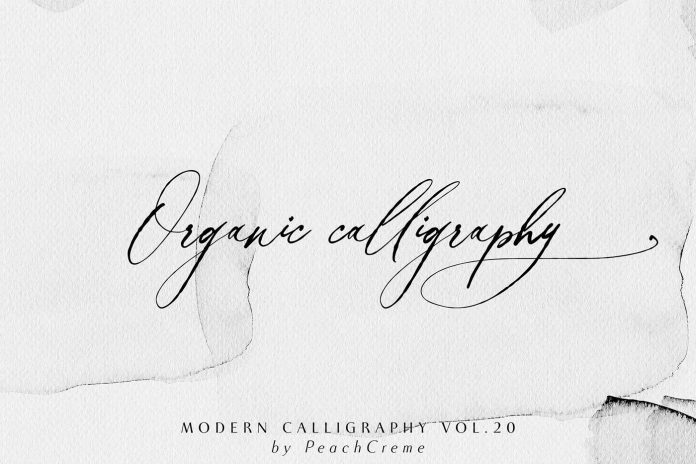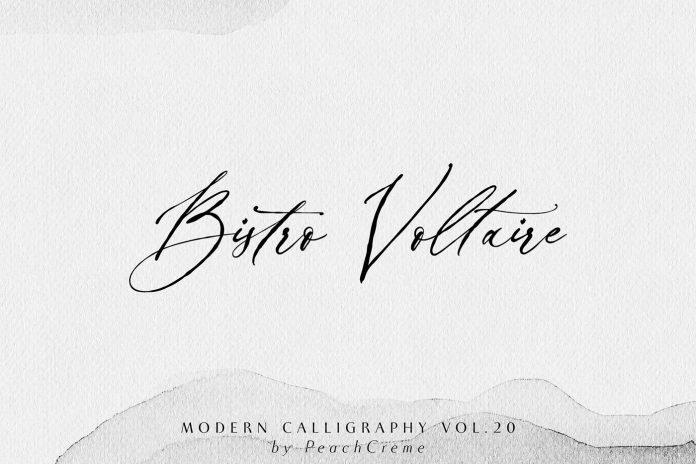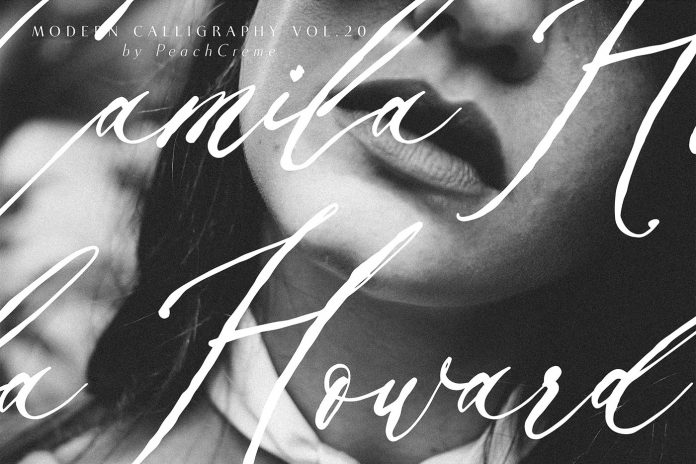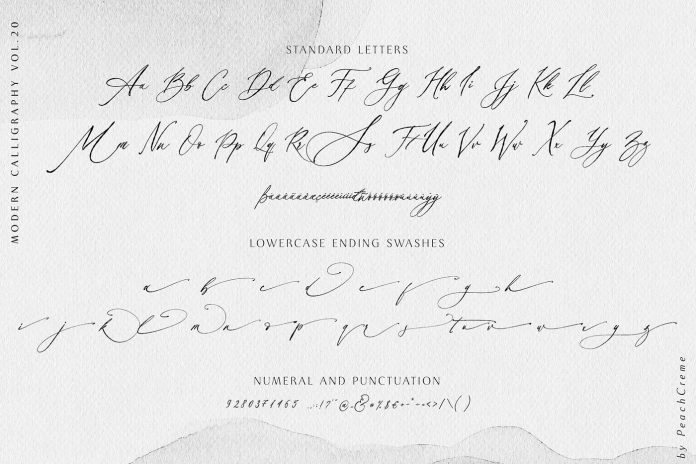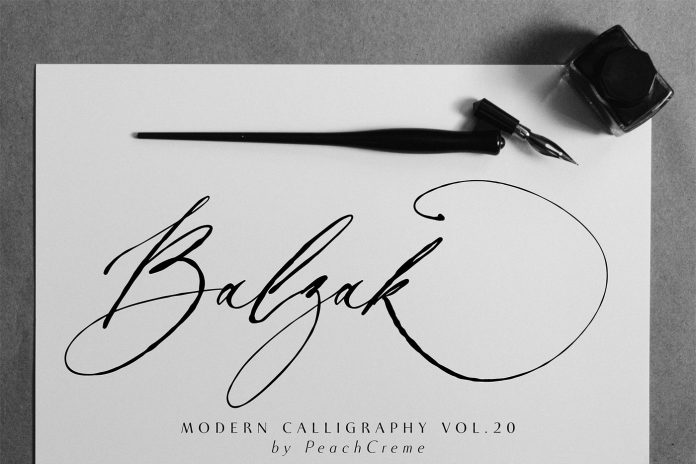
The Balzak font —organic calligraphy by Gulya Ju of studio PeachCreme.
Gulya Ju is a type and graphic designer with a strong passion for handmade lettering. The skilled designer has recently published Balzak, a new calligraphic typeface based on real handwriting. Characterized by messy ink and “imperfect” letters, the font is a great choice for all designs that ask for natural, hand-drawn lettering. Balzak comes with both uppercase and lowercase letters as well as numerals and a wide range of punctuation and ligatures. All lowercase letters include elegant ending swashes. In order to activate swashes, you need professional tools such as Adobe Photoshop, Illustrator, and InDesign that supports OpenType features. You can get the latest version from the Adobe Creative Cloud website, just have a look here.